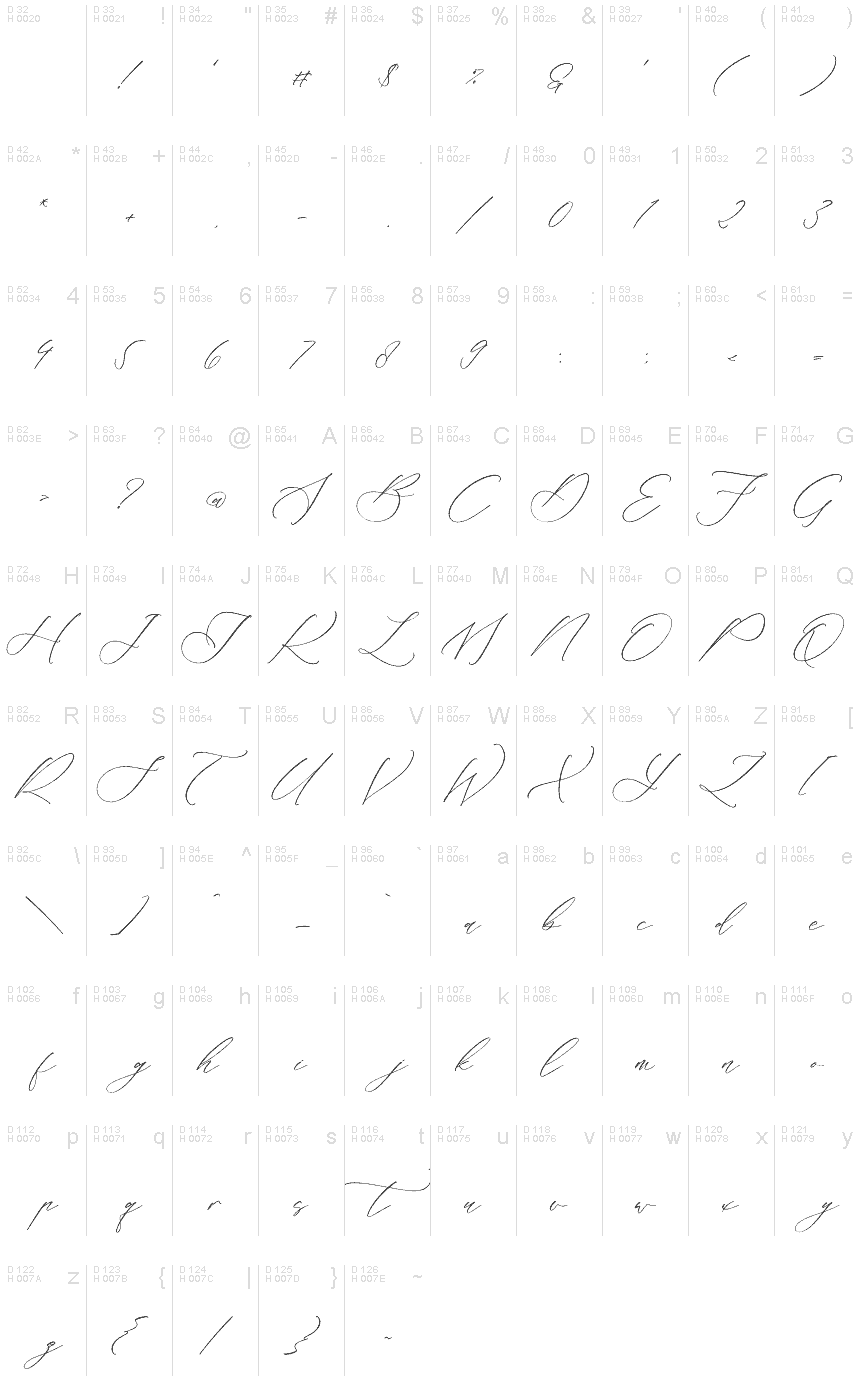
Liontinela Realise
Liontinela Realise font by Storytype Studio is an elegant free handwritten font with a delicate signature-like appearance that carries a vintage appeal. Its light weight gives it a graceful flowing look which enhances its sophistication and gorgeousness. The resulting letter art can be easily used in both personal and professional projects.